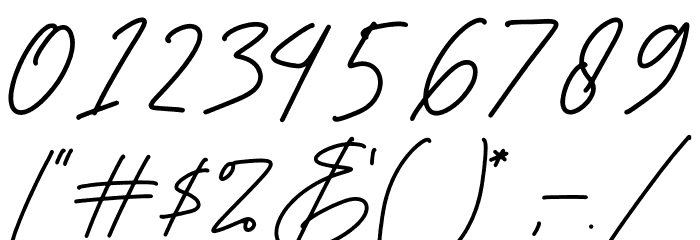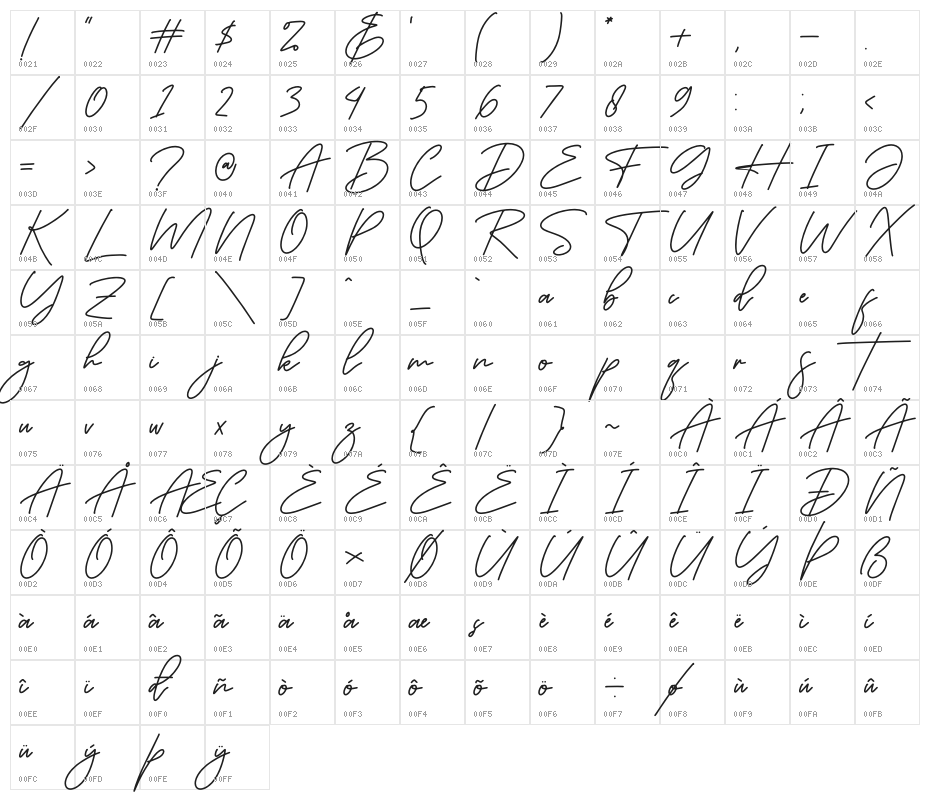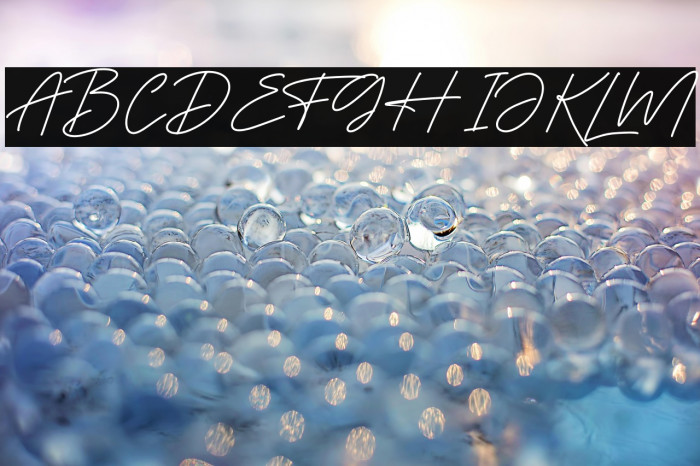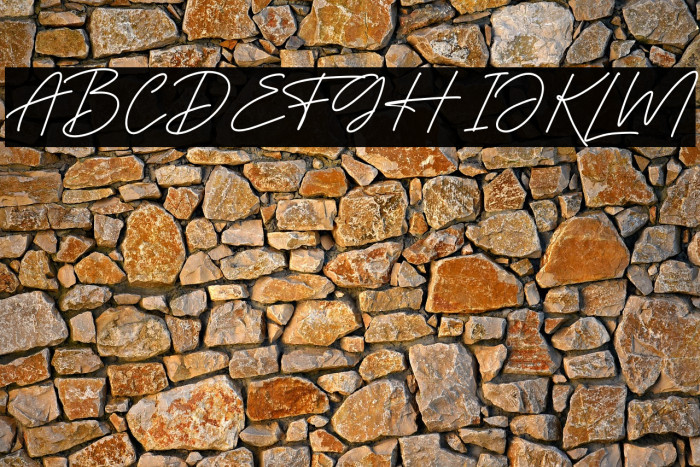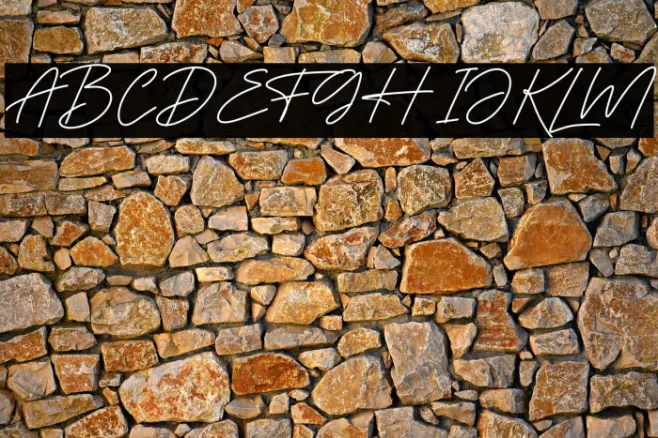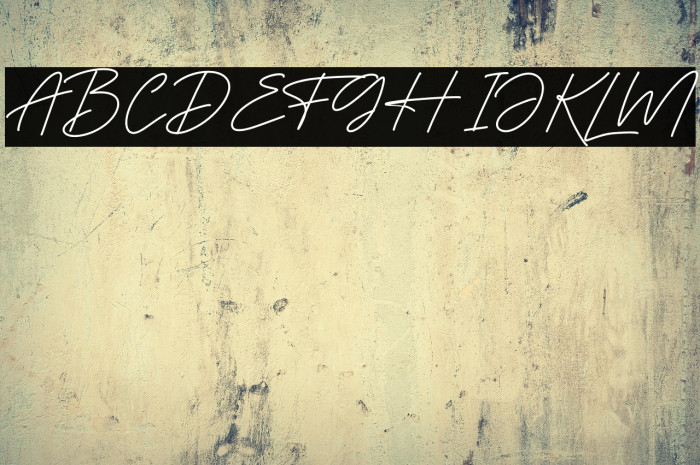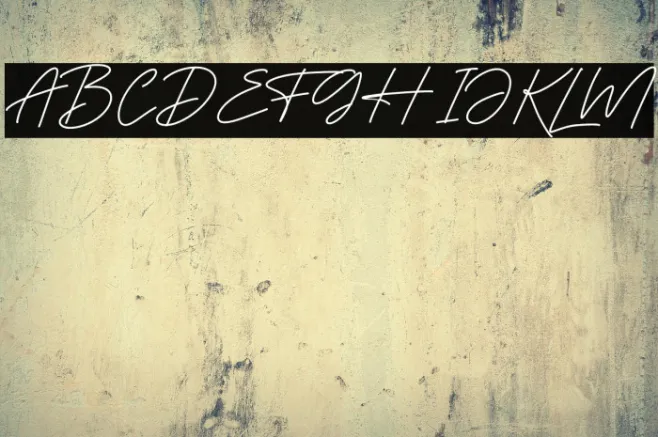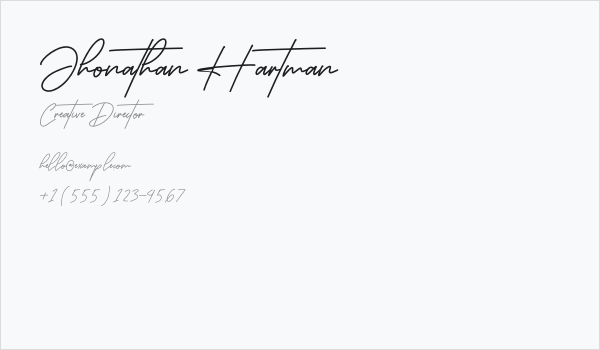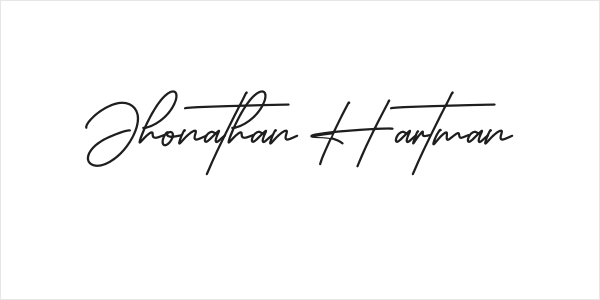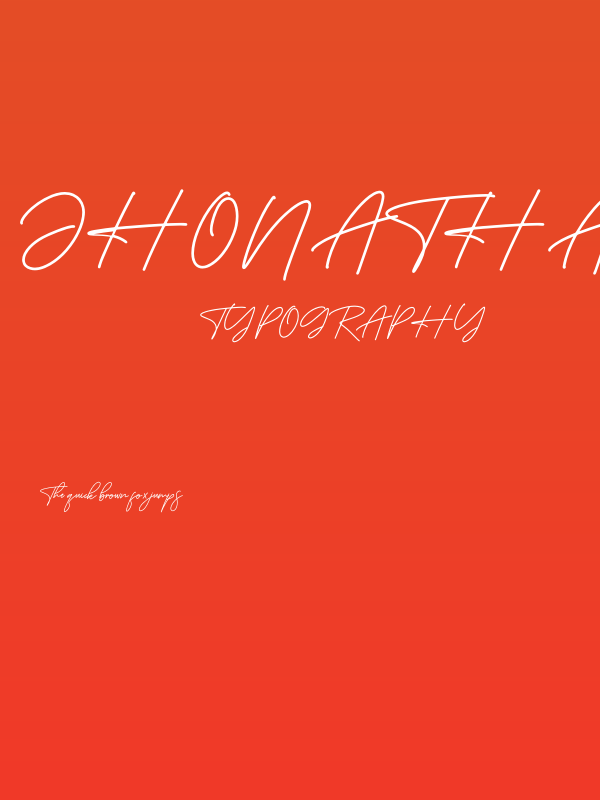
Jhonathan Hartman Font
Jhonathan Hartman Description
This font exhibits a dynamic and fluid handwritten style, characterized by its elegant and flowing script. The uppercase letters are tall and slender, with a slight slant that adds a sense of motion and grace. The lowercase letters are more compact, maintaining the same fluidity and connectedness, which is typical of cursive writing. The numerals are consistent with the overall style, featuring smooth curves and a slightly elongated form. Special characters are seamlessly integrated, maintaining the aesthetic of the script. The overall appearance is sophisticated and artistic, making it suitable for creative and expressive projects.